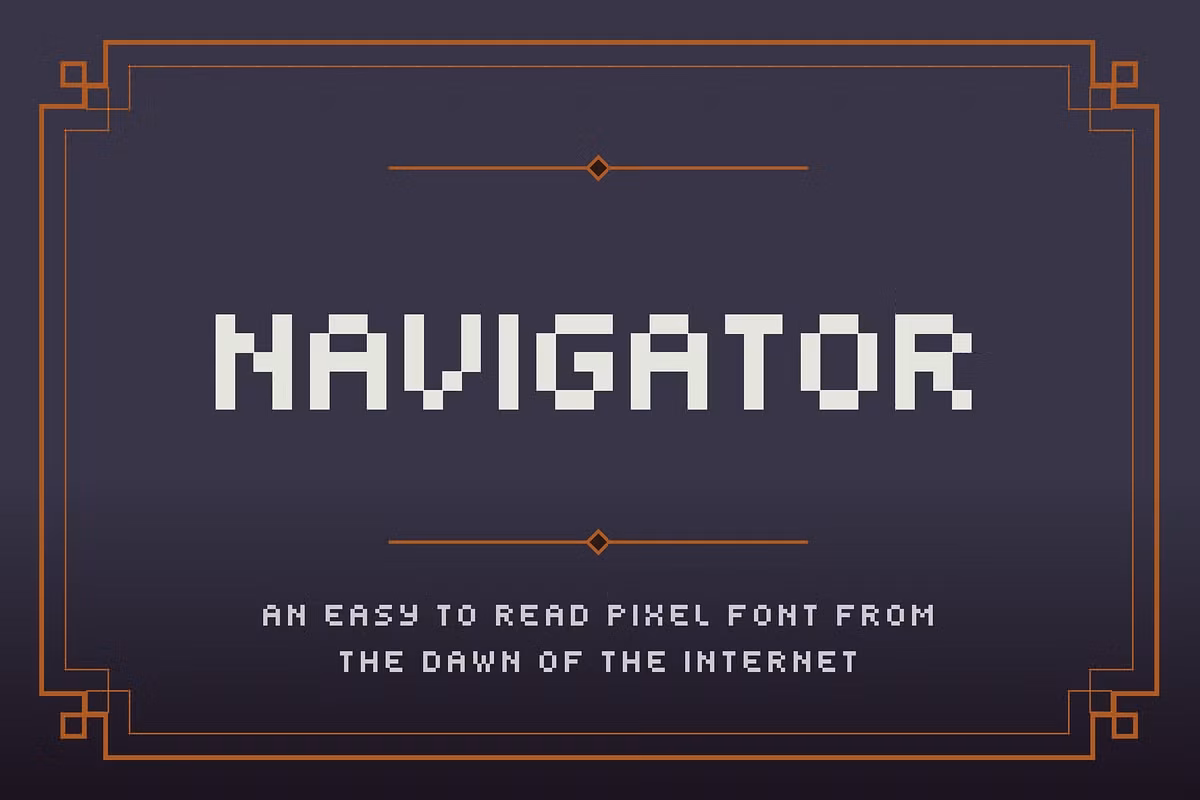
Bring a retro, digital aesthetic to your designs with Navigator - Pixel Art Font Free Download. This unique pixelated font is perfect for video game branding, retro-style designs, app interfaces, social media graphics, and anything that needs a nod to classic 8-bit graphics.
Navigator features clean, square-like characters that provide the charm of old-school computer screens and early video games. It includes uppercase letters, numerals, punctuation, and special characters—great for testing creative, pixel-based layouts with a nostalgic flair.